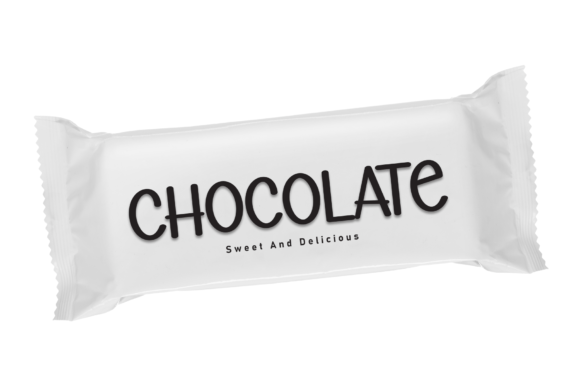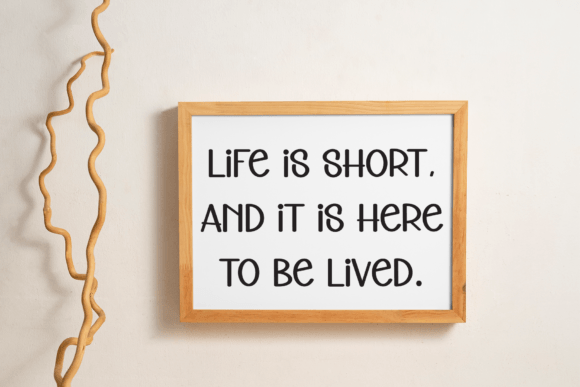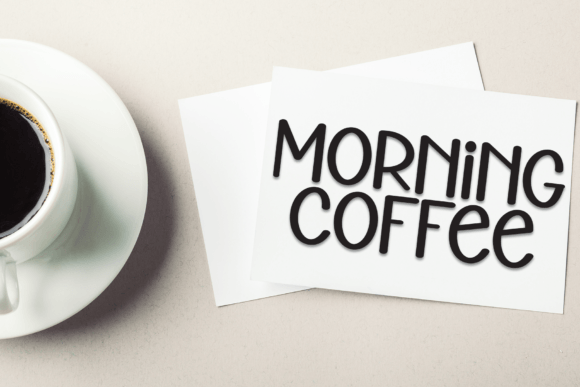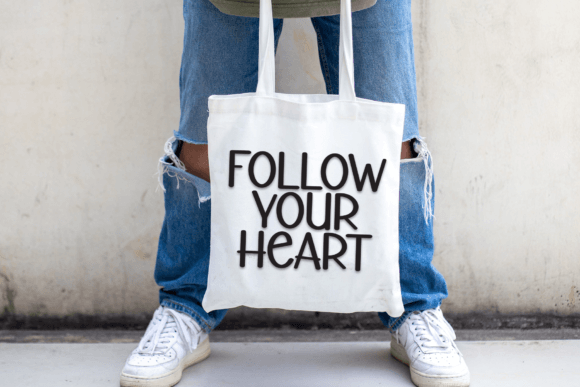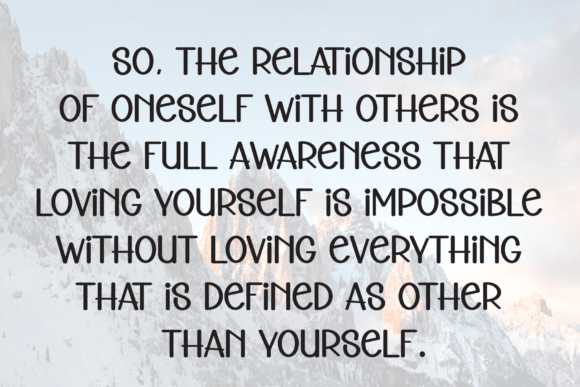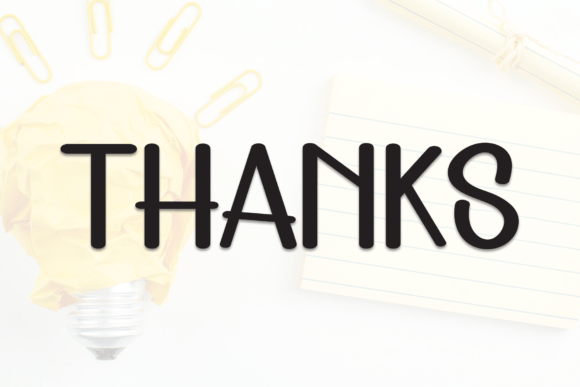
Unlocking Creative Potential: The Power of Creative Thinking Font
Are you a designer, crafter, or creative looking to add a personal touch to your projects? Look no further than the Creative Thinking Font, a sweet and friendly handwritten font that’s perfect for bringing your ideas to life. With its natural and unique style, this font is incredibly versatile and can be used in a wide range of designs, from DIY crafts to professional branding.
The Story Behind Creative Thinking Font
Creative Thinking Font is a carefully crafted typeface designed to inspire creativity and imagination. Its natural, hand-written style gives it a warm and approachable feel, making it perfect for projects that require a personal touch. Whether you’re creating invitations, greeting cards, or social media graphics, this font is sure to add a touch of whimsy and charm to your designs.
What Makes Creative Thinking Font So Special?
So, what sets Creative Thinking Font apart from other fonts on the market? Here are just a few reasons why this font is a must-have for designers and crafters:
- Unique and Handwritten Style: Unlike generic, computer-generated fonts, Creative Thinking Font is a genuine handwritten typeface that adds a touch of personality to any design.
- Natural and Friendly Feel: The font’s natural style makes it perfect for projects that require a friendly and approachable tone, such as children’s books, educational materials, and crafts.
- Versatile and Adaptable: Whether you’re creating digital or print designs, Creative Thinking Font is incredibly versatile and can be used in a wide range of projects, from logos and branding to social media graphics and more.
Endless Possibilities with Creative Thinking Font
The only limit to what you can create with Creative Thinking Font is your imagination! Here are just a few ideas to get you started:
- DIY Crafts: Use Creative Thinking Font to add a personal touch to your DIY crafts, such as handmade cards, gift tags, and decorations.
- Branding and Logos: Create a unique and memorable brand identity with Creative Thinking Font, perfect for small businesses, entrepreneurs, and creatives.
- Social Media Graphics: Add a touch of personality to your social media graphics, such as Instagram posts, Facebook graphics, and Twitter headers.
- Educational Materials: Use Creative Thinking Font to create engaging and interactive educational materials, such as worksheets, activity sheets, and children’s books.
Tips and Tricks for Using Creative Thinking Font
Here are a few tips and tricks to help you get the most out of Creative Thinking Font:
- Experiment with Colors: Try pairing Creative Thinking Font with different colors and textures to add depth and interest to your designs.
- Play with Size and Scale: Experiment with different font sizes and scales to create visual interest and hierarchy in your designs.
- Combine with Other Fonts: Try pairing Creative Thinking Font with other fonts to create a unique and eye-catching combination.
In conclusion, Creative Thinking Font is a sweet and friendly handwritten font that’s perfect for designers, crafters, and creatives looking to add a personal touch to their projects. With its natural and unique style, this font is incredibly versatile and can be used in a wide range of designs, from DIY crafts to professional branding. So why wait? Unlock your creative potential with Creative Thinking Font and see where your imagination takes you!